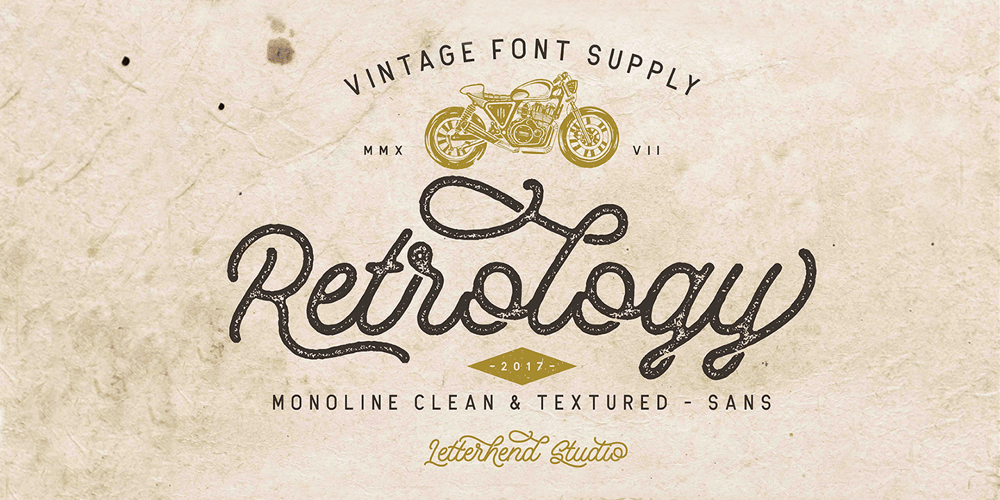
Retrology Font Family was designed by Hendry Juanda and published by Letterhend. Retrology contains 3 styles and family package options. So classic, so retro… it’s Retrology! Introducing, Retrology. This monoline typeface will bring you to the good ol’ days with its classic touch!